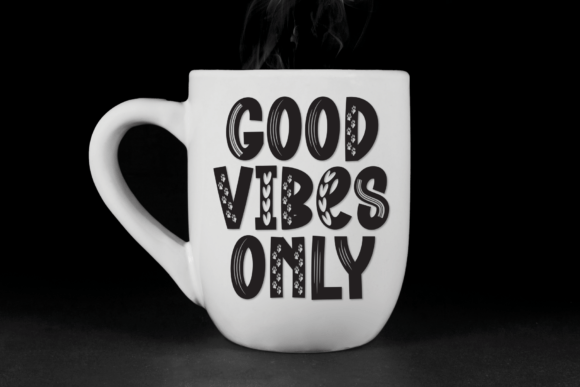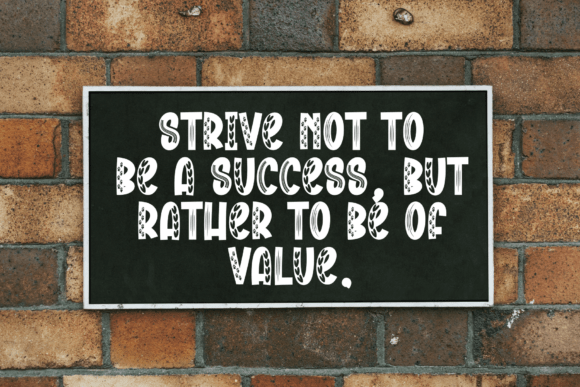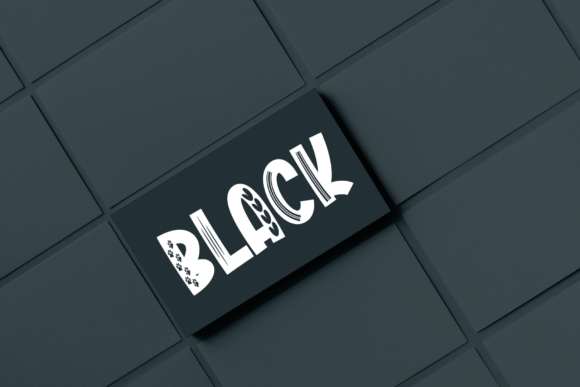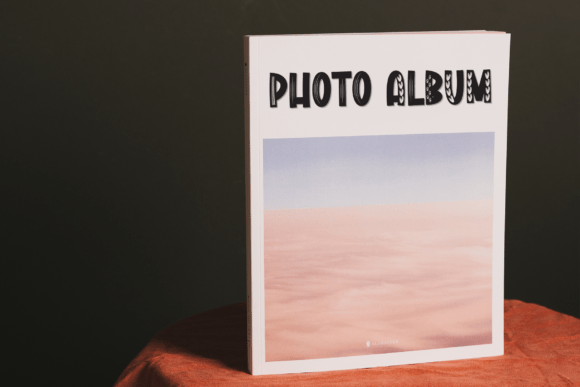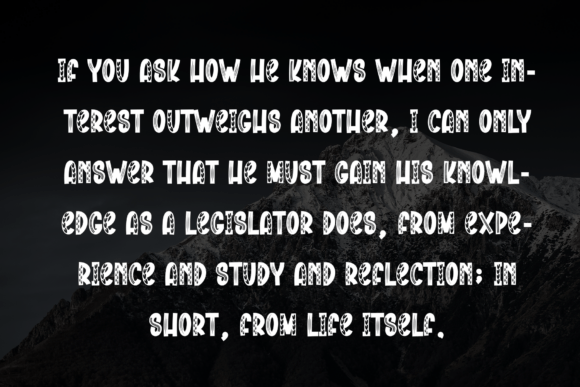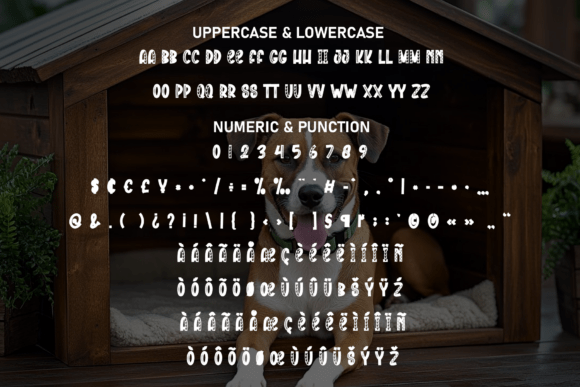
Introducing Dog House Font: Elevate Your Designs with a Touch of Whimsy
Are you tired of using the same old fonts in your designs? Look no further! Our Dog House Font is here to take your creative projects to the next level. With its unique and playful style, this font is perfect for designers and crafters who want to add a touch of whimsy to their work.
Unleash Your Creativity with Dog House Font
Our Dog House Font is designed to provide you with an extraordinary experience. Whether you’re working on a wall display, wedding invitation, social media post, logo, advertisement, product packaging, or any other project that requires tasteful handwriting, this font has got you covered. Its latest style letters are carefully crafted to add a personal touch to your designs, making them stand out from the crowd.
With Dog House Font, the design possibilities are endless. Here are some ideas to get you started:
- Wall displays: Add a personal touch to your home or office decor with custom wall displays.
- Wedding invitations: Make your special day even more memorable with unique and stylish wedding invitations.
- Social media posts: Elevate your social media game with eye-catching graphics and logos.
- Logos and branding: Create a lasting impression with a custom logo that reflects your brand’s personality.
- Product packaging: Stand out in a crowded market with custom product packaging that showcases your brand’s style.
Why Choose Dog House Font?
So, why choose our Dog House Font over other fonts on the market? Here are just a few reasons:
- Unique style: Our font features a one-of-a-kind design that’s sure to make your projects stand out.
Don’t settle for boring, generic fonts that fail to make an impact. With Dog House Font, you can add a touch of whimsy and personality to your designs. Whether you’re a professional designer or a crafty DIY enthusiast, our font is the perfect addition to your creative toolkit.